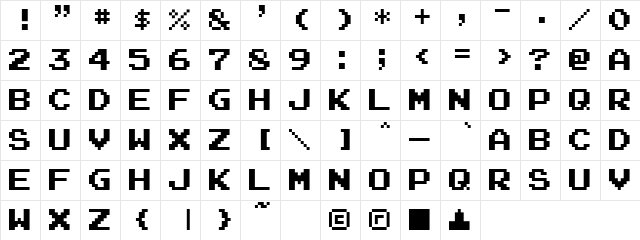
Arcade Normal Regular Font Preview
Arcade Normal Regular
Arcade Normal Regular Font Details
Design Context for Arcade Normal Typeface
Arcade Normal is a composed and adaptable typeface that performs quietly and consistently across a wide range of design contexts.